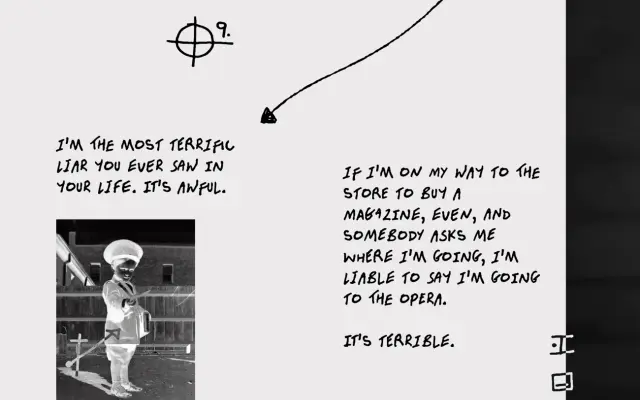
An uppercase display face drawn from the erratic, irregular handwriting found in letters attributed to the Son of Sam serial killer.
Built from the chaotic penmanship of a notorious serial killer's correspondence, Serial is an all-caps display typeface with two styles: Regular and Alternates. The alternates extend the irregularity, offering variation to avoid mechanical repetition across settings. Over 270 glyphs are included with multi-lingual character support.
An uppercase display typeface drawn from erratic handwriting, placing it firmly in the display category with a hand-lettered, irregular character that defies conventional script classification.